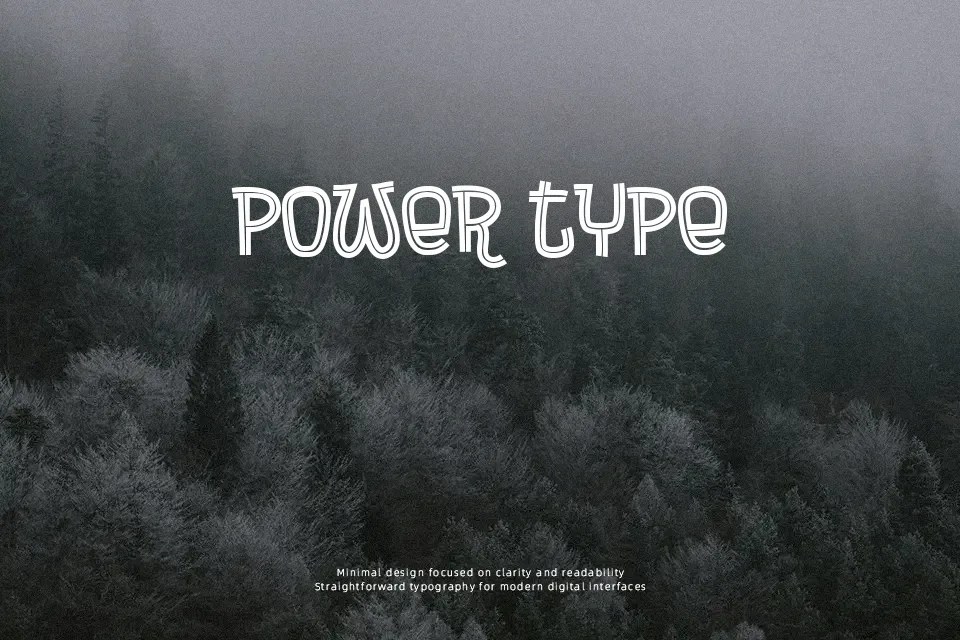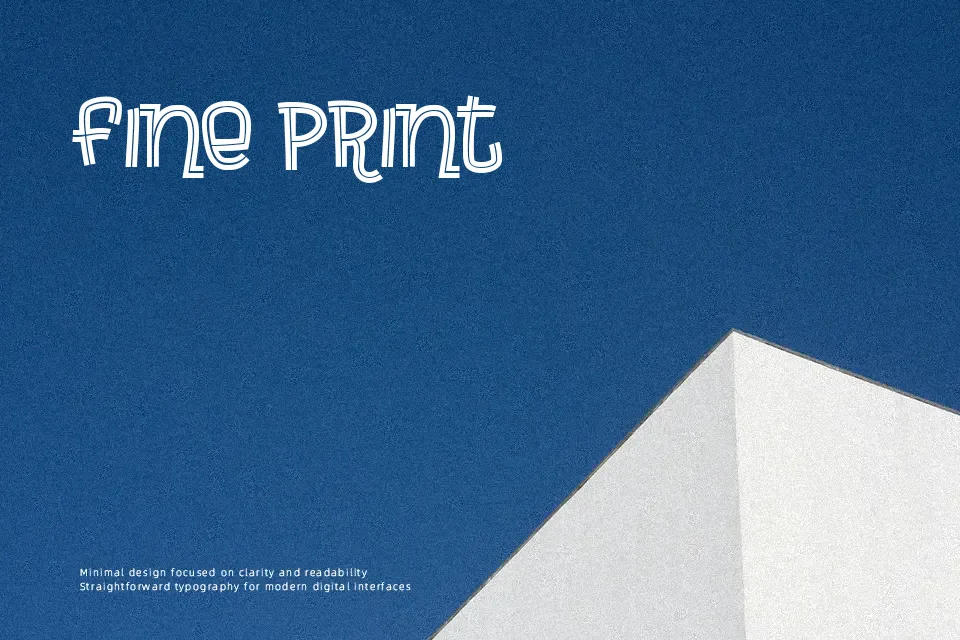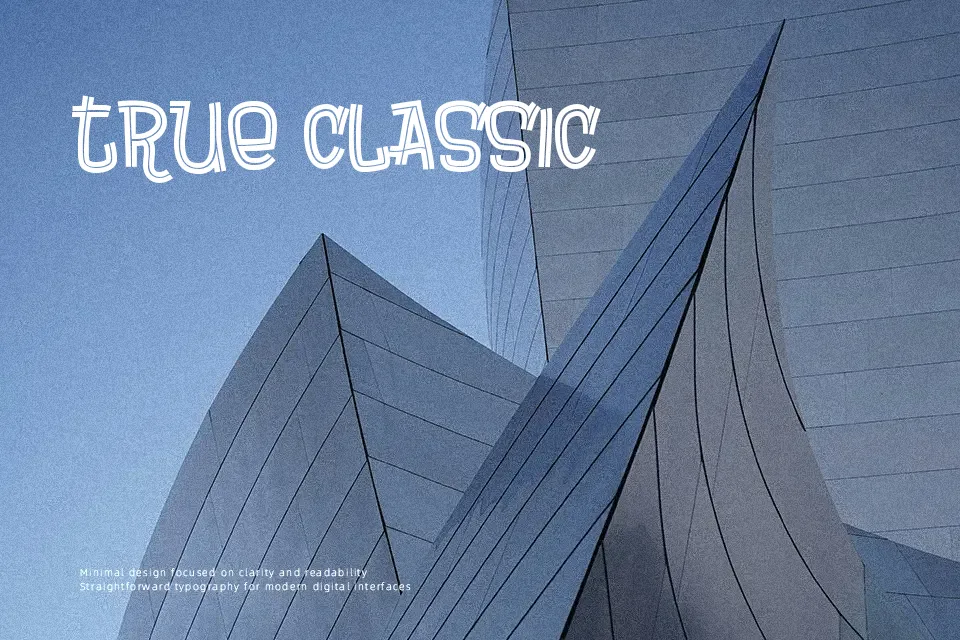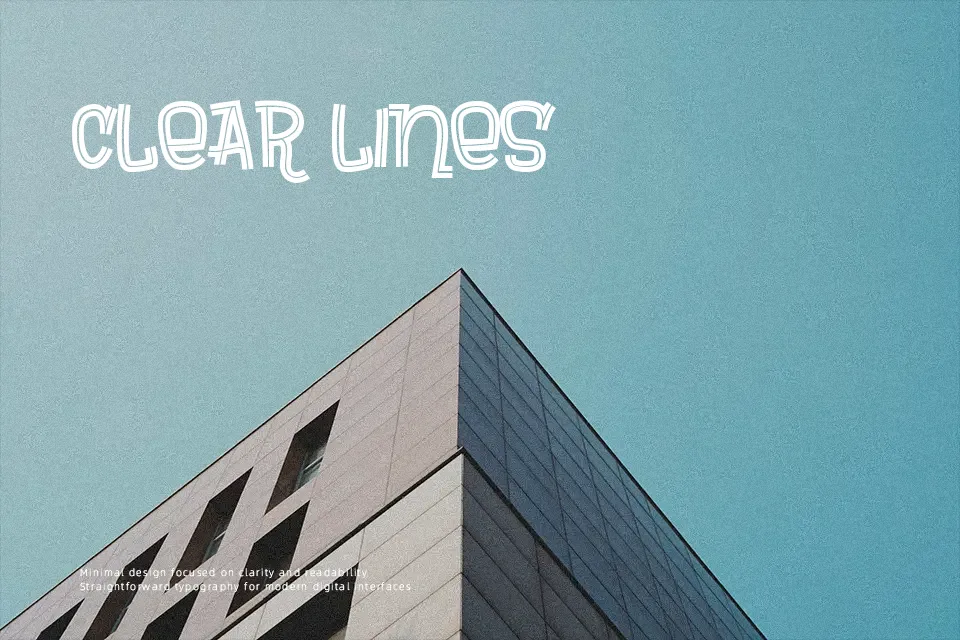
Brewsky Font
Brewsky Font channels early 20th-century brewery packaging with sturdy serif forms, slightly uneven strokes, and compact spacing that pulls letters tightly together for a punchy, handcrafted look. The overall feel is decorative and nostalgic rather than neutral, so it stands out quickly in logos, badges, and merchandise rather than long reading text. Its alternates and subtle ornamental touches help you build layered vintage wordmarks for cans, bottles, and tap handles, especially when paired with simple sans-serif copy. It tends to work best at medium to large sizes; if you need small captions or minimalist branding, the character details can feel heavy or busy.
craft beer labels and brewery branding
vintage bar or pub signage
poster headlines for food and drink events
long paragraphs or editorial body text
minimalist or highly corporate branding
tiny UI labels or dense data graphics
Perfect for branding, logo, and packaging, with a artistic and decorative style.